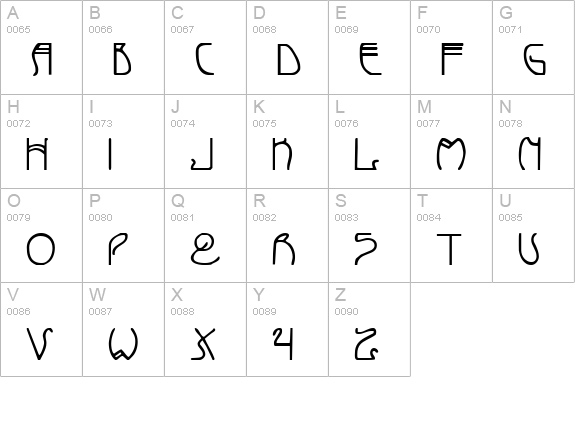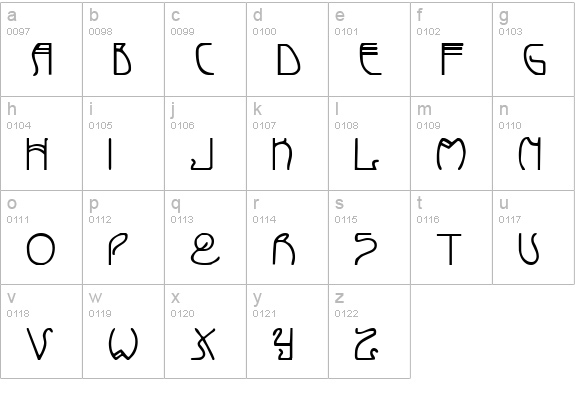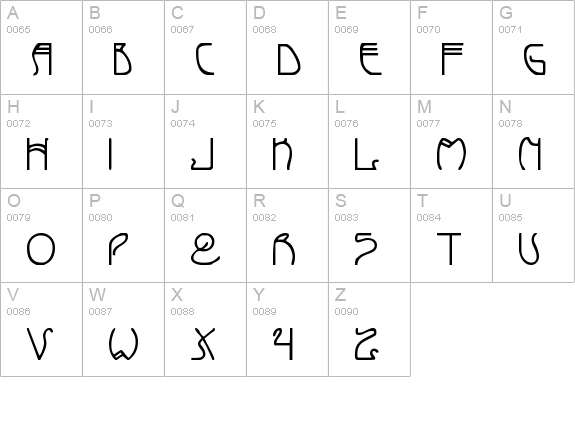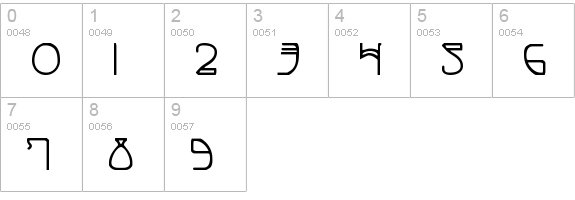
Coyote Deco is a stunning display font that captures the essence of the roaring 1920s art deco era. With its bold lines and intricate details, this font exudes a sense of sophistication and elegance. Perfect for adding a touch of vintage flair to your designs, Coyote Deco is versatile and eye-catching. Best of all, Coyote Deco is available for free download at FontsMarket.com. Whether you're working on a poster, logo, or branding project, this font will elevate your designs to the next level. Embrace the timeless charm of art deco with Coyote Deco and unleash your creativity today!